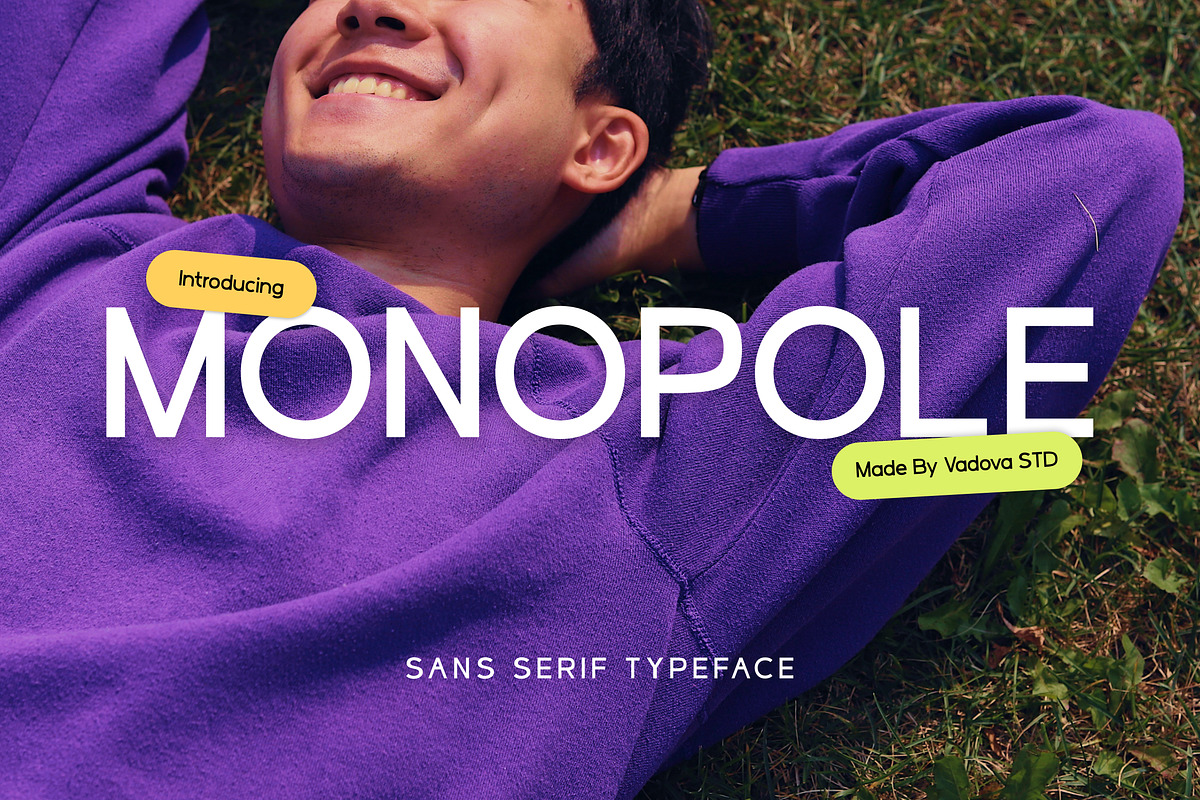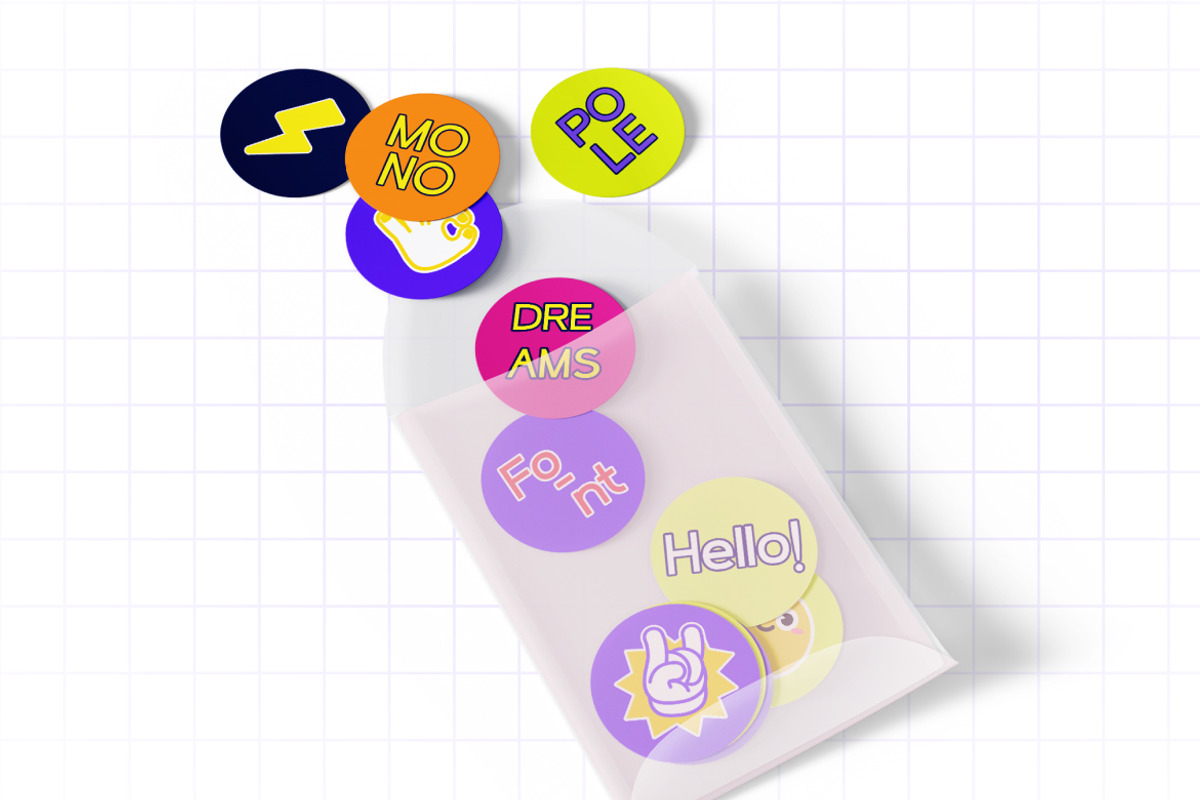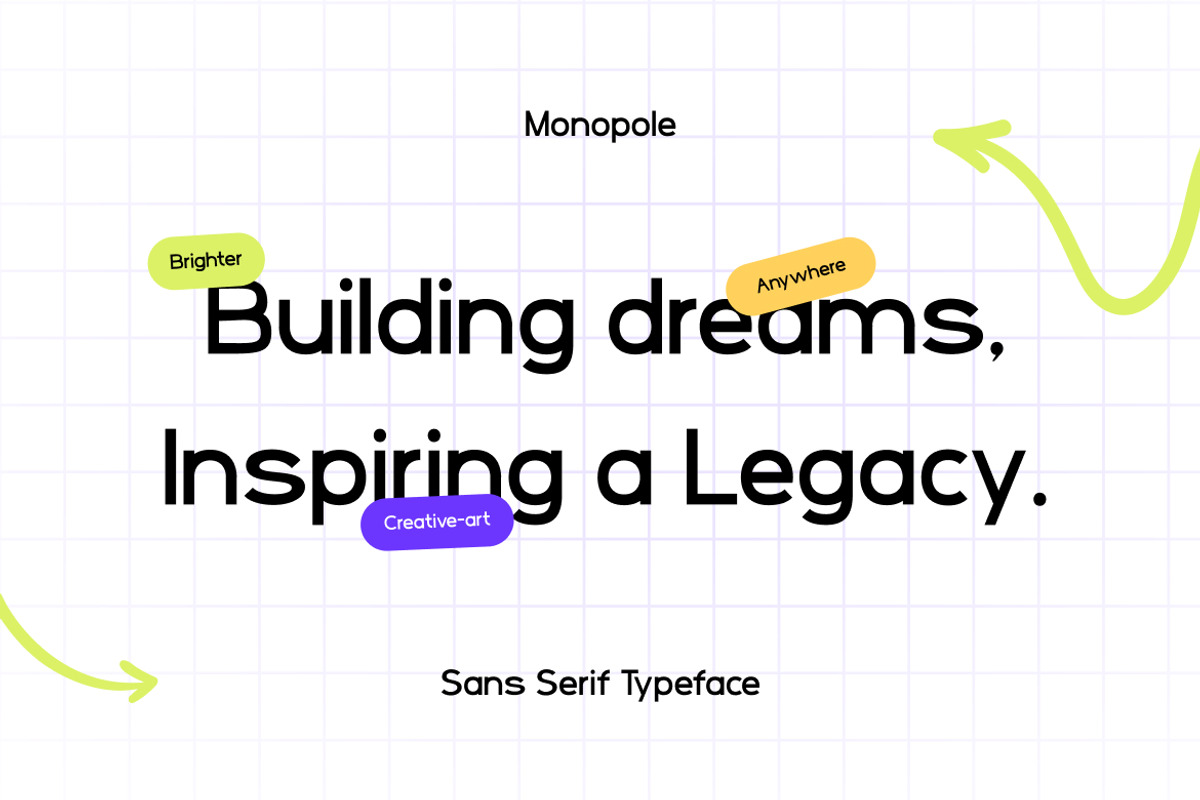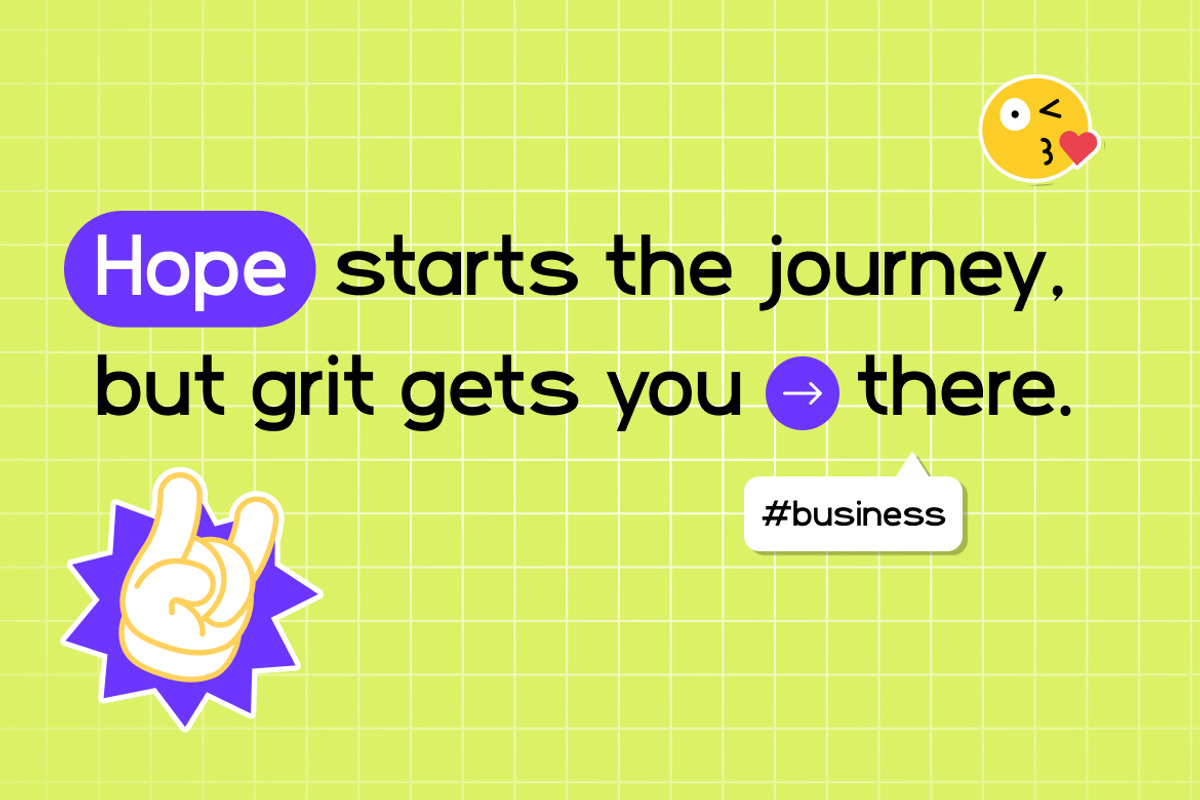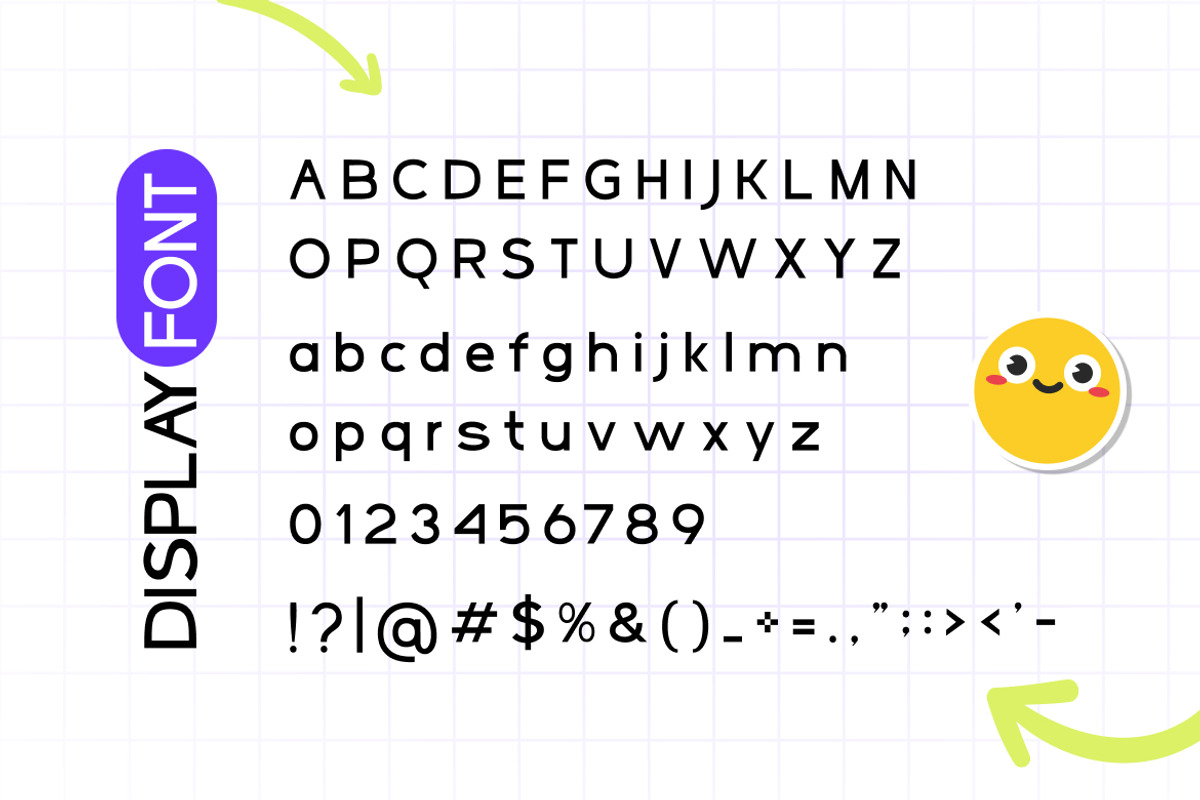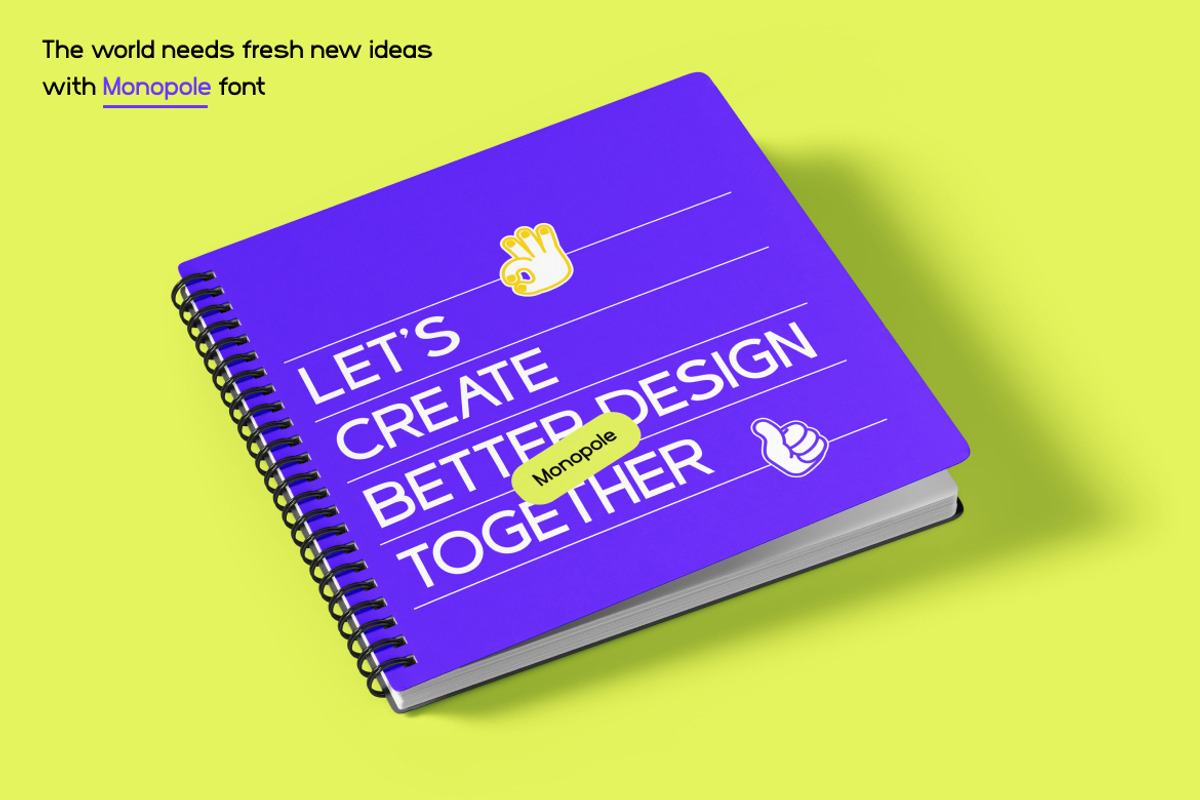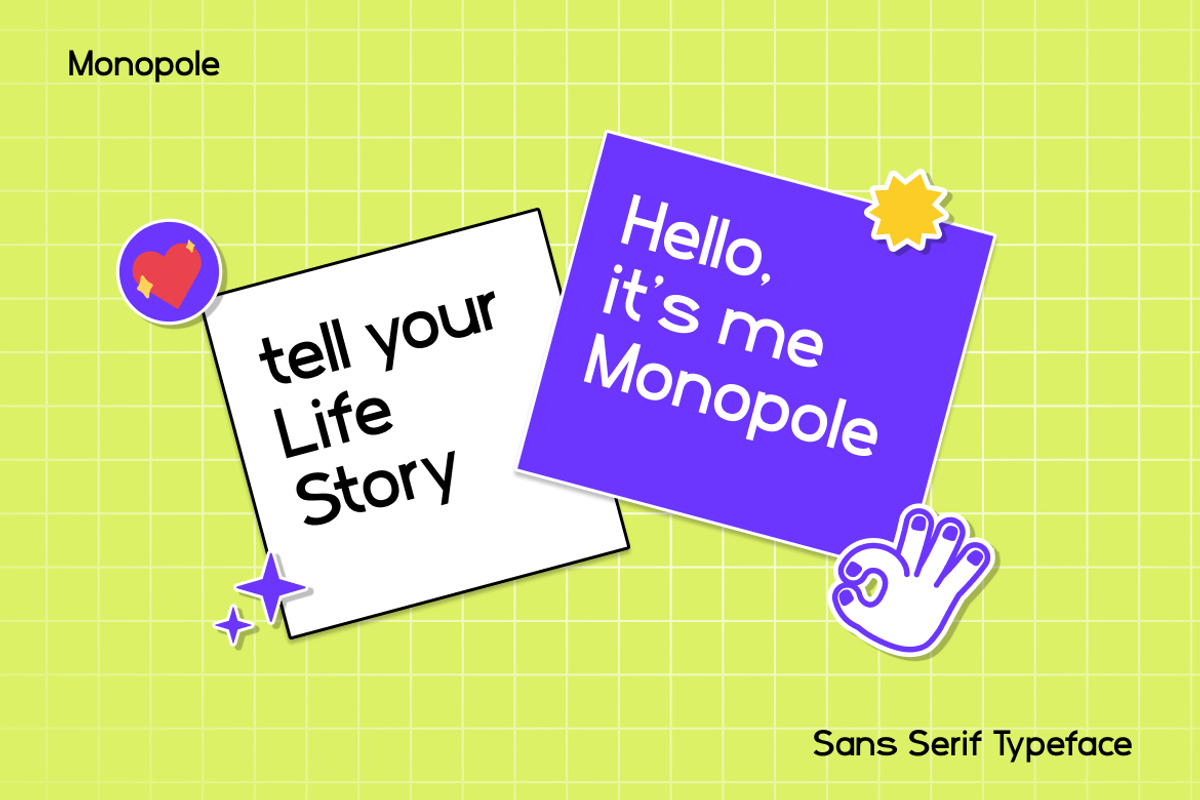
Monopole - Modern Sans Serif
Monopole is a modern sans serif typeface crafted with clean geometry and a contemporary touch. Its bold yet minimalist letterforms deliver clarity, elegance, and versatility for a wide range of design projects. Whether you’re building a strong brand identity or crafting standout editorial layouts, Monopole adapts beautifully.
Why You’ll Love Monopole:
Geometric precision – balanced shapes with a modern edge.
Versatile style – works seamlessly for both digital and print designs.
All caps design – strong, bold, and perfect for impactful headlines.
Professional yet creative – ideal for corporate branding and artistic projects alike.
Logo design and brand identity
Editorial & magazine layouts
Posters, flyers, and advertising
Social media graphics & content creation
Product packaging & merchandise design
Website, UI, and digital presentations
Modern sans serif style
Clean and minimalist look
Bold condensed proportions
Timeless design suitable for multiple industries
High readability in both small and large sizes
Bring your projects to life with a typeface that combines clarity, strength, and modern elegance. Monopole isn’t just a font—it’s your new design toolkit.